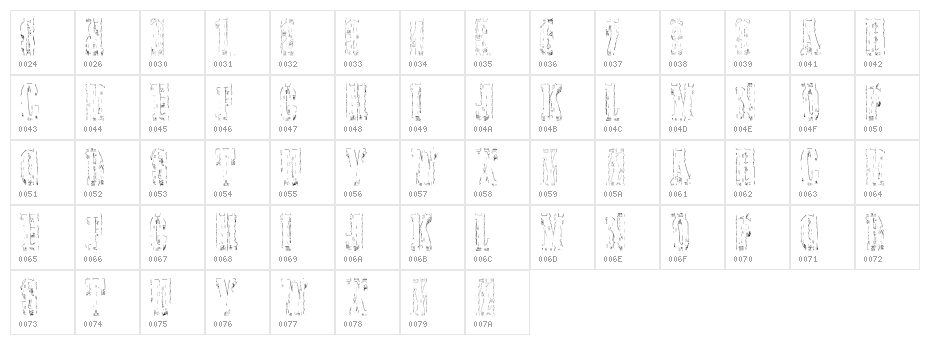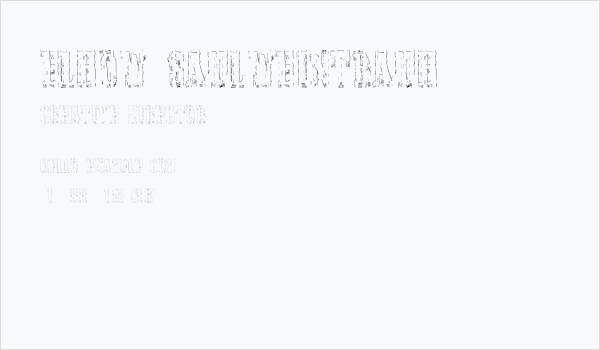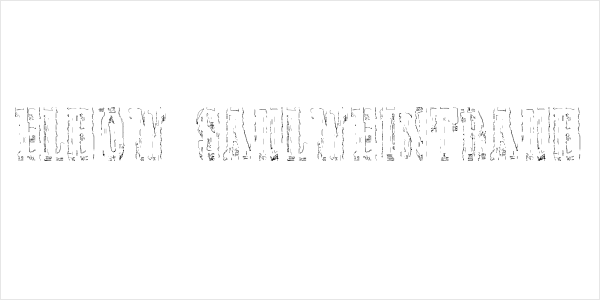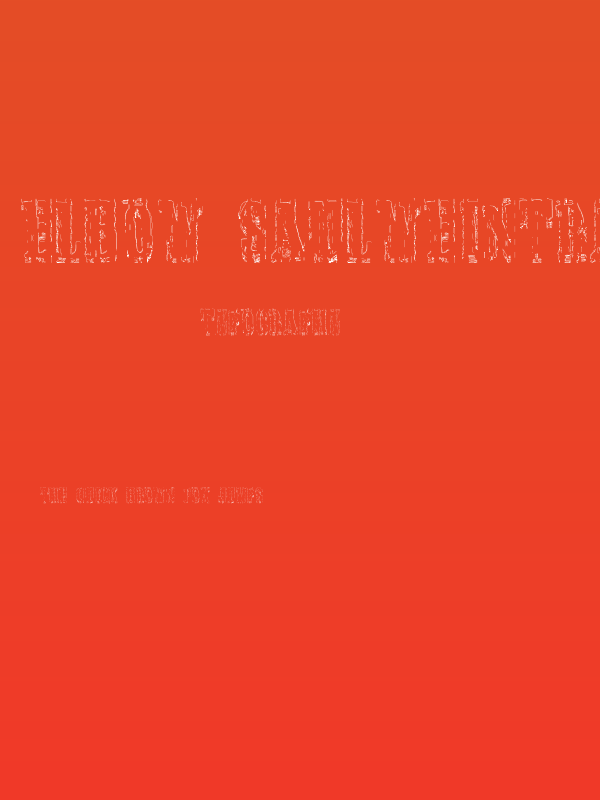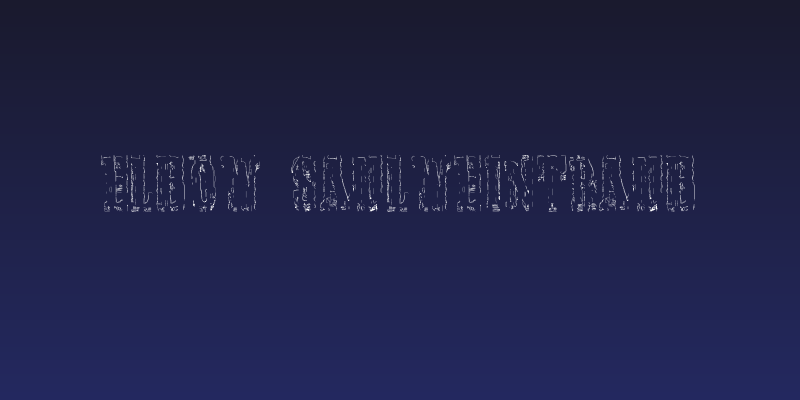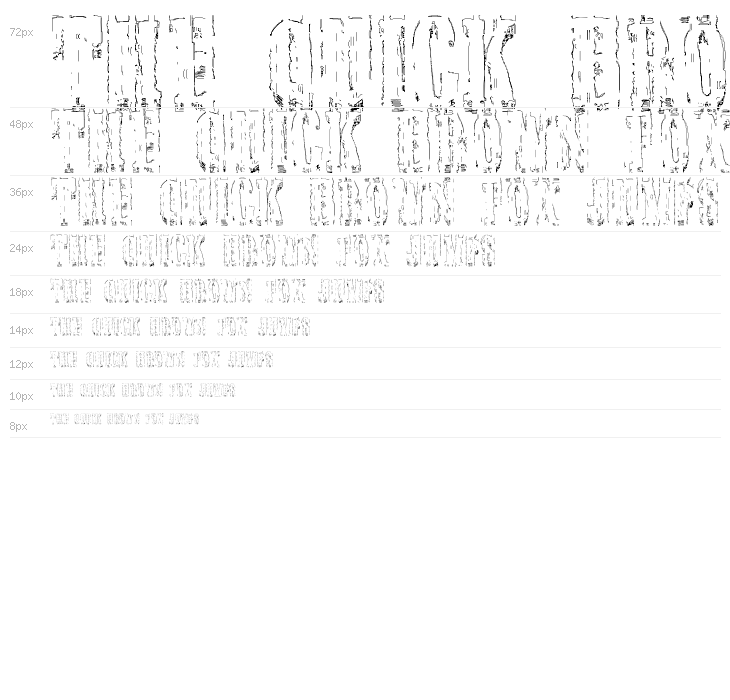
Elbow-SaulWeintraub Font
Elbow-SaulWeintraub Description
This font features a distressed, textured appearance that gives it a vintage and rugged feel. The characters are bold and have a slightly condensed form, with irregular edges that contribute to its worn-out look. The uppercase and lowercase letters maintain a consistent style, with a uniform height that enhances readability despite the decorative elements. The numbers and special characters follow the same design principles, ensuring a cohesive look across all glyphs. This font's unique style makes it stand out, ideal for projects that require a touch of nostalgia or a handcrafted aesthetic.
| Proposed Projects | Ideal for vintage posters, branding for artisanal products, or any design needing a rustic touch. |